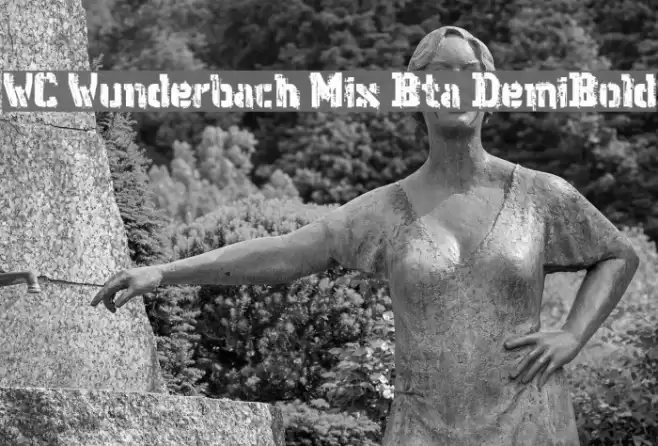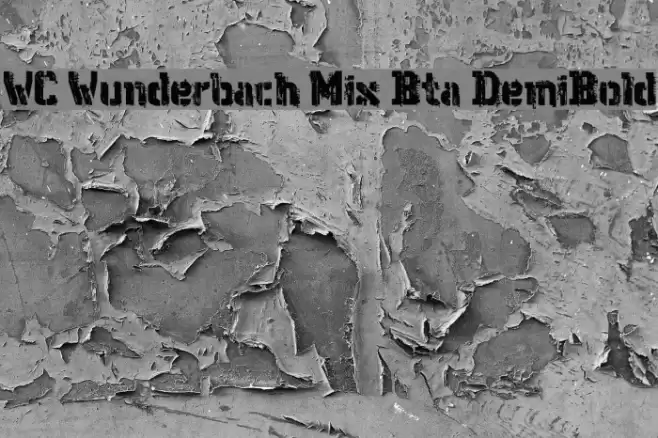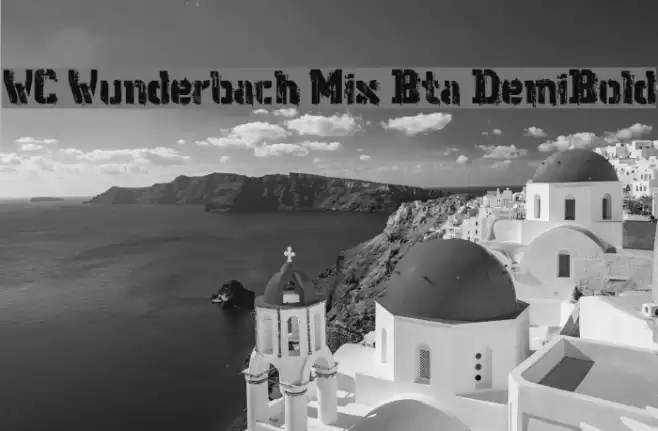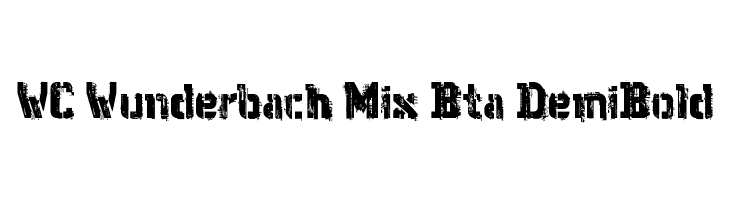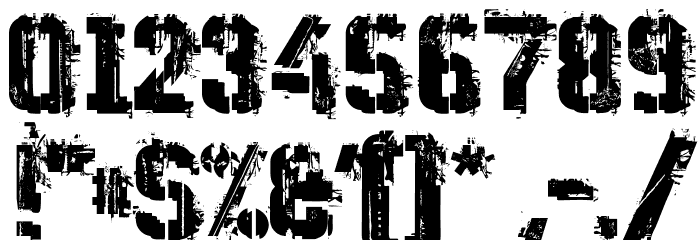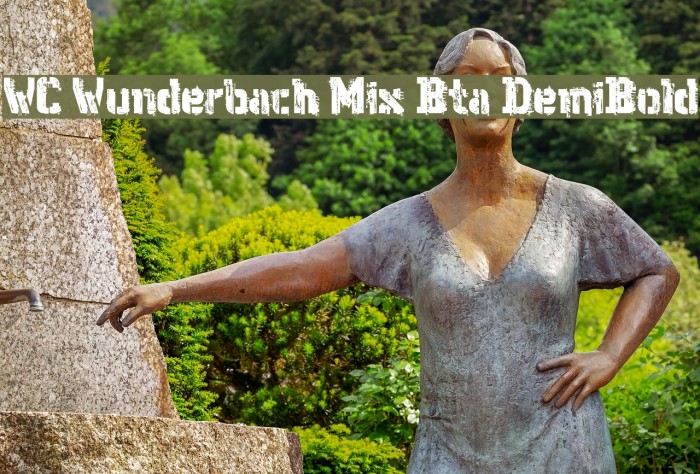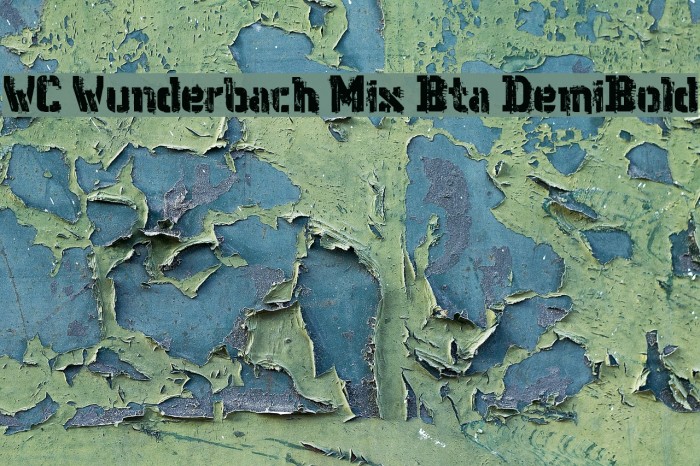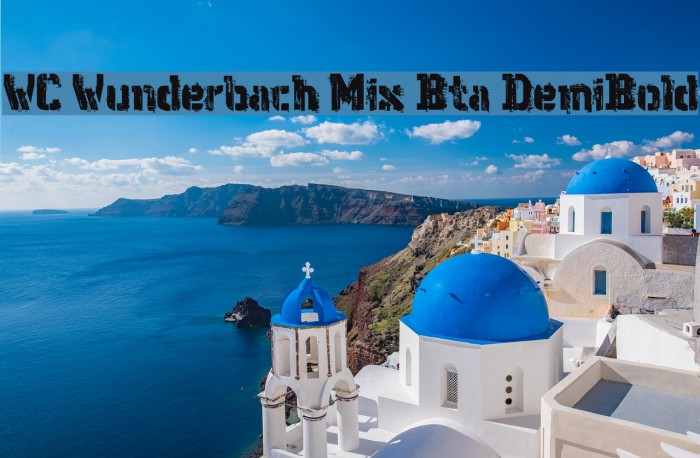
WC Wunderbach Mix Bta DemiBold Font
WC Wunderbach Mix Bta DemiBold Description
This font features a bold and distressed style, characterized by its rough, textured appearance that gives it a grunge or urban feel. The letters are uppercase and lowercase, with numbers and special characters, all sharing the same rugged aesthetic. The texture appears as if the letters have been weathered or eroded, adding a dynamic and edgy quality. This font is ideal for projects that require a bold statement or a raw, authentic look. Its unique style makes it stand out, perfect for capturing attention in creative designs.
A bold, distressed font with a grunge, textured appearance from Stencil fonts.
- Proposed Projects: Ideal for album covers, posters, streetwear branding, or any project needing a gritty, urban vibe.
- Overall Style: Grunge, Urban